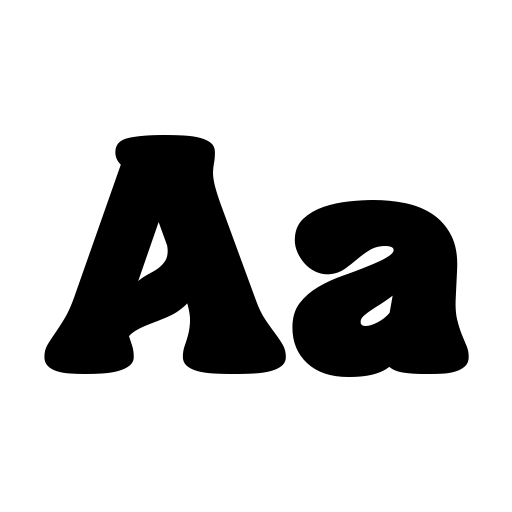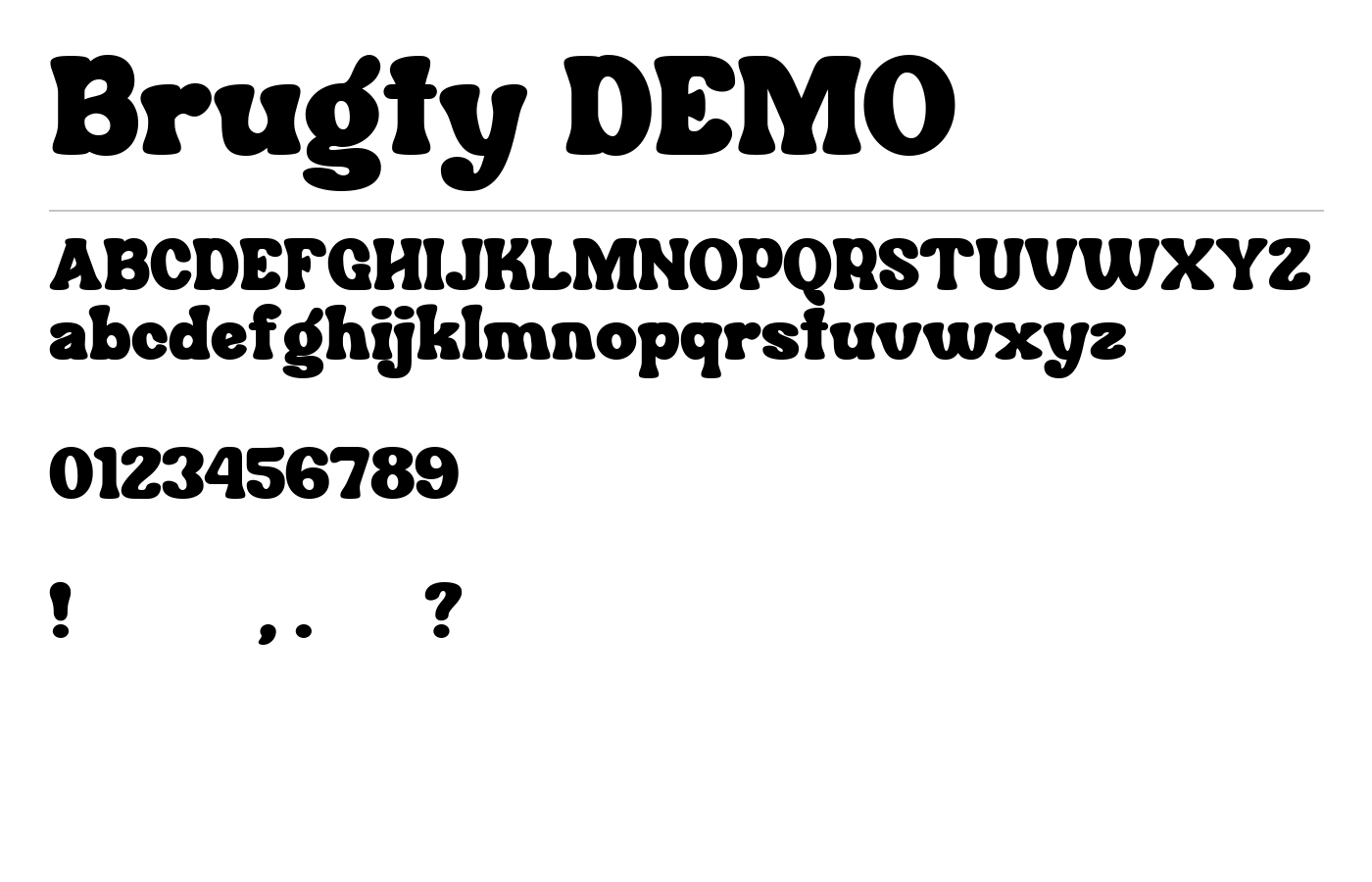
Brugty DEMO is a bold and playful slab serif font with thick, rounded serifs that give it a friendly and approachable feel. Its sturdy weight and compact letterforms make it ideal for eye-catching headlines and fun branding projects, especially where a vintage or whimsical vibe is desired. This font works well in creative packaging, posters, and logos where a distinctive, lively character is needed to grab attention.
Brugty DEMO Font
About Brugty DEMO Font